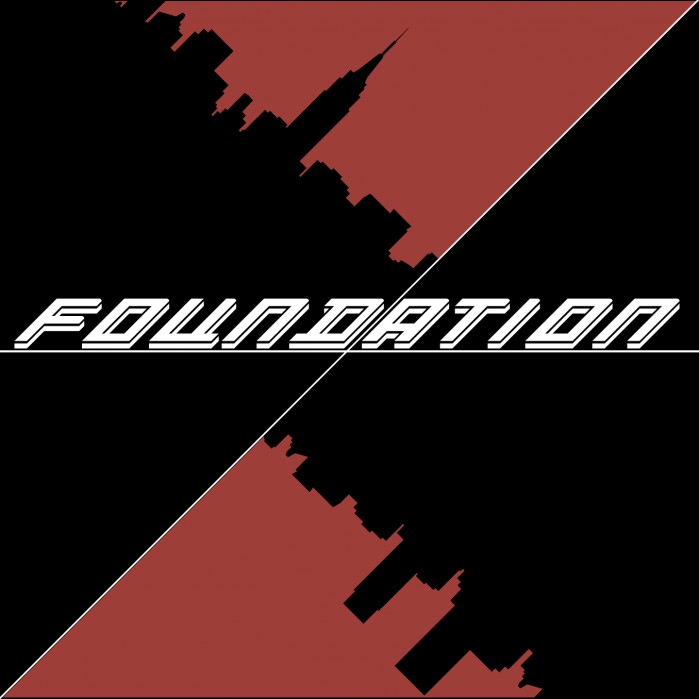
• Foundation is a typeface inspired by those found on covers and posters throughout the movie industry such as the popular “Blade Runner.” The goal was to create a typeface that evokes a sense of power or boldness. Through the use of expanded letters and strong diagonals, this font is best used in titles or short messages.
The name Foundation was chosen due to the anatomy of the typeface. It is built in two layers creating the appearance of a structure that has been built onto a base.
Really great work. I like the subtle differences between the X, H and K but perhaps they are too subtle. And the V is very U-like.